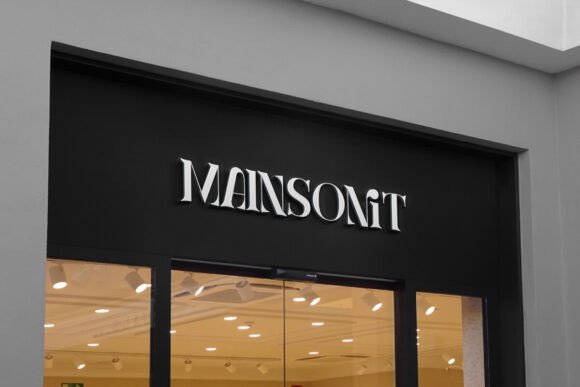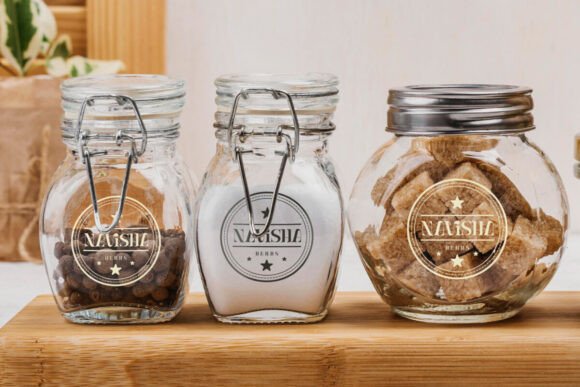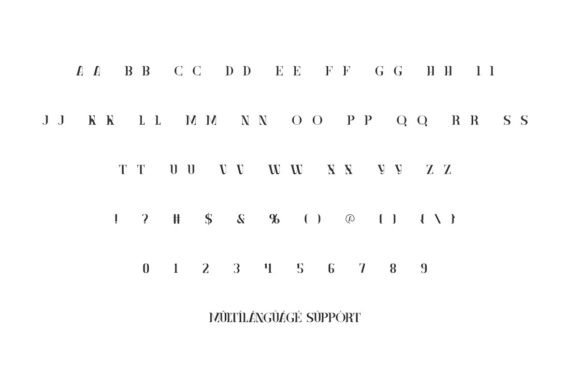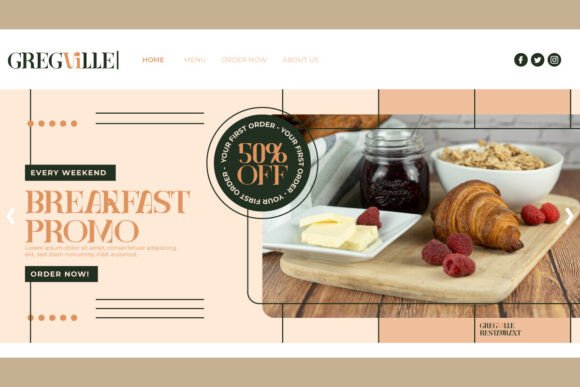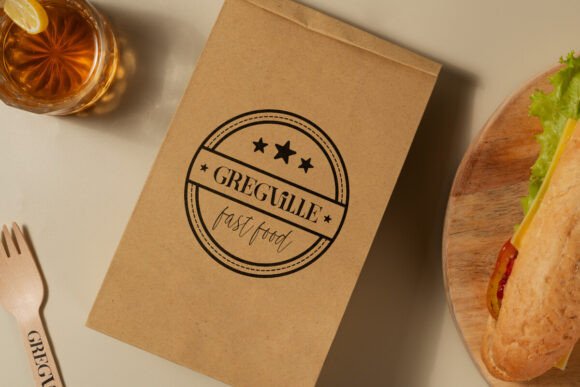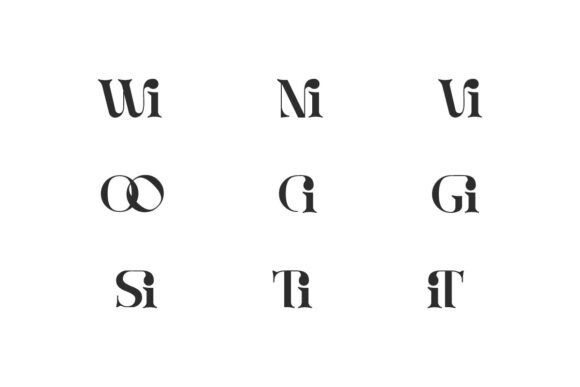
Introduction to Gregville Font
Have you ever stared at a blank canvas, waiting for inspiration to strike? For designers, this moment can be both exhilarating and intimidating. But what if you had the perfect font to spark that creative spark? Enter the Gregville Font, a bold serif font that’s as charming as it is versatile.
As a design resource, the Gregville Font offers a unique blend of vintage-inspired details and modern edge. Its sophisticated style makes it perfect for logos, headlines, and creative projects that demand a touch of classic charm. Whether you’re working on a high-quality design or need a free download for a quick project, the Gregville Font is a valuable addition to any designer’s toolkit.
With its transparent background and high-quality design, the Gregville Font is a versatile choice for designers who want to add a personal touch to their work. So why settle for a generic font when you can stand out with the Gregville Font’s unique and artistic style?
Key Features of Gregville Font
- High-quality design resource ideal for creative projects, offering a unique and stylish look.
- Designed to be a versatile and adaptable font, suitable for a wide range of creative projects and design needs.
Honest Review: Gregville Font
I recently stumbled upon the Gregville Font, a free download that I decided to put to the test. As a designer, I’m always on the lookout for high-quality design resources that can elevate my creative project.
- The Gregville Font offers a wide range of characters, including both uppercase and lowercase letters, as well as numbers and punctuation marks.
- The font’s clean and modern design makes it perfect for a variety of creative projects.
While the Gregville Font is a great resource, I did notice a few limitations. The font only comes in a single weight, which may limit its versatility. Additionally, the font may not be suitable for body text, as it can be quite decorative.
Overall, I’m impressed with the Gregville Font and would definitely recommend it to designers who are looking for a high-quality, free design resource.
To get the most out of Gregville Font, experiment with different font sizes, colors, and combinations to create unique and eye-catching designs. Use the font’s transparent background feature to add depth and interest to your designs.
Gregville Font is commonly used in creative projects such as logos, icons, graphics, social media posts, flyers, brochures, presentations, documents, and reports. Its high-quality design and transparent background feature make it a versatile and useful design resource.